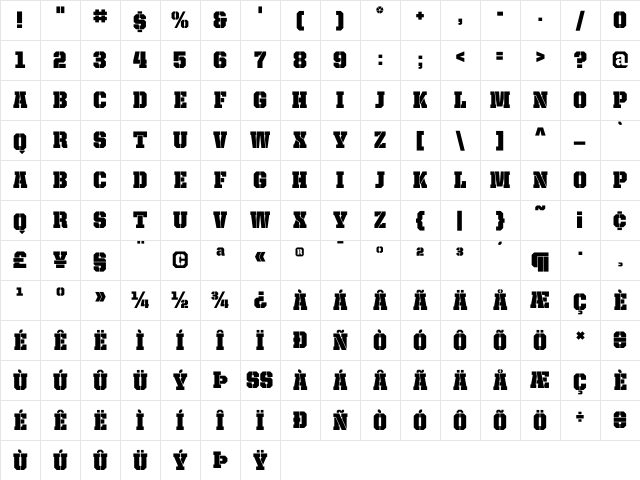
United Serif SemiCond Stencil
Style: Stencil
Foundry: House Industries
Designer: Tal Leming
Design Context for United Serif SemiCond
United Serif SemiCond borrows the utilitarian aesthetic of stencil lettering, with its characteristic cutaways and no-frills construction lending an industrial edge.
Pro Tip: Use United Serif SemiCond at large sizes on packaging, posters, or apparel where the stencil cutaways read clearly. Avoid small sizes where those gaps become visual noise.